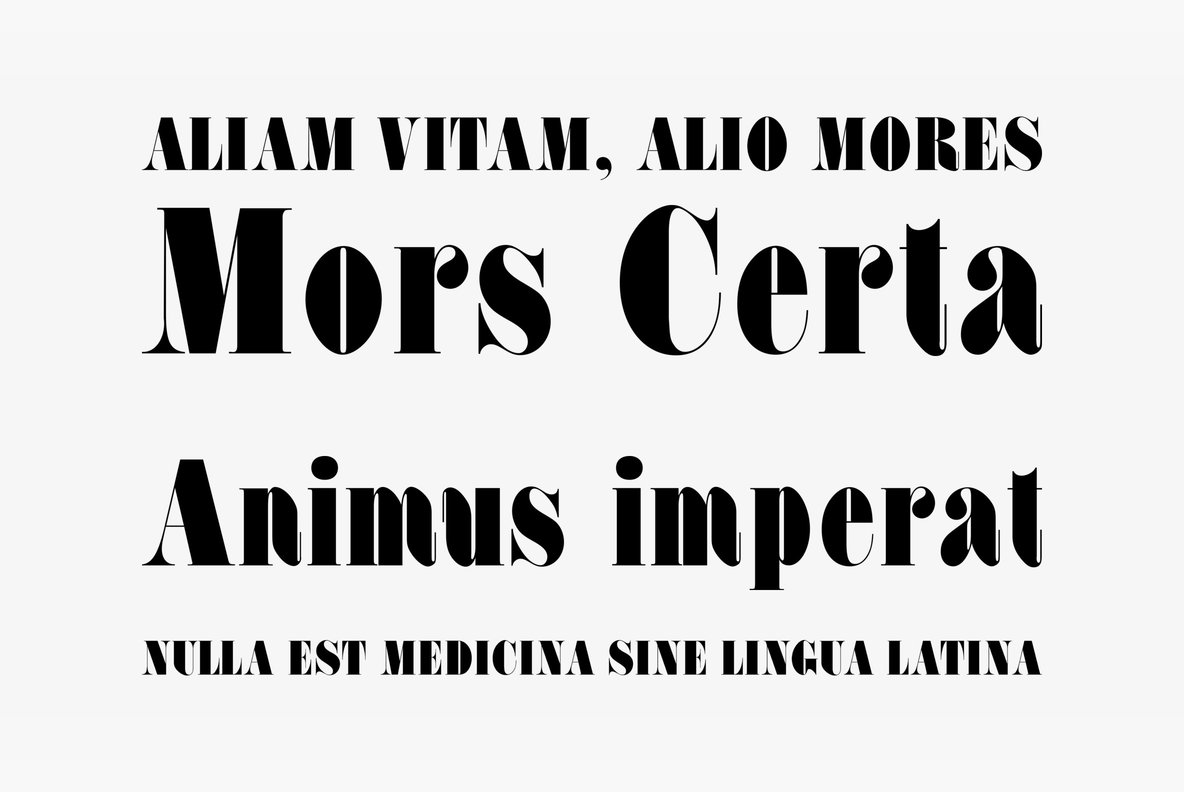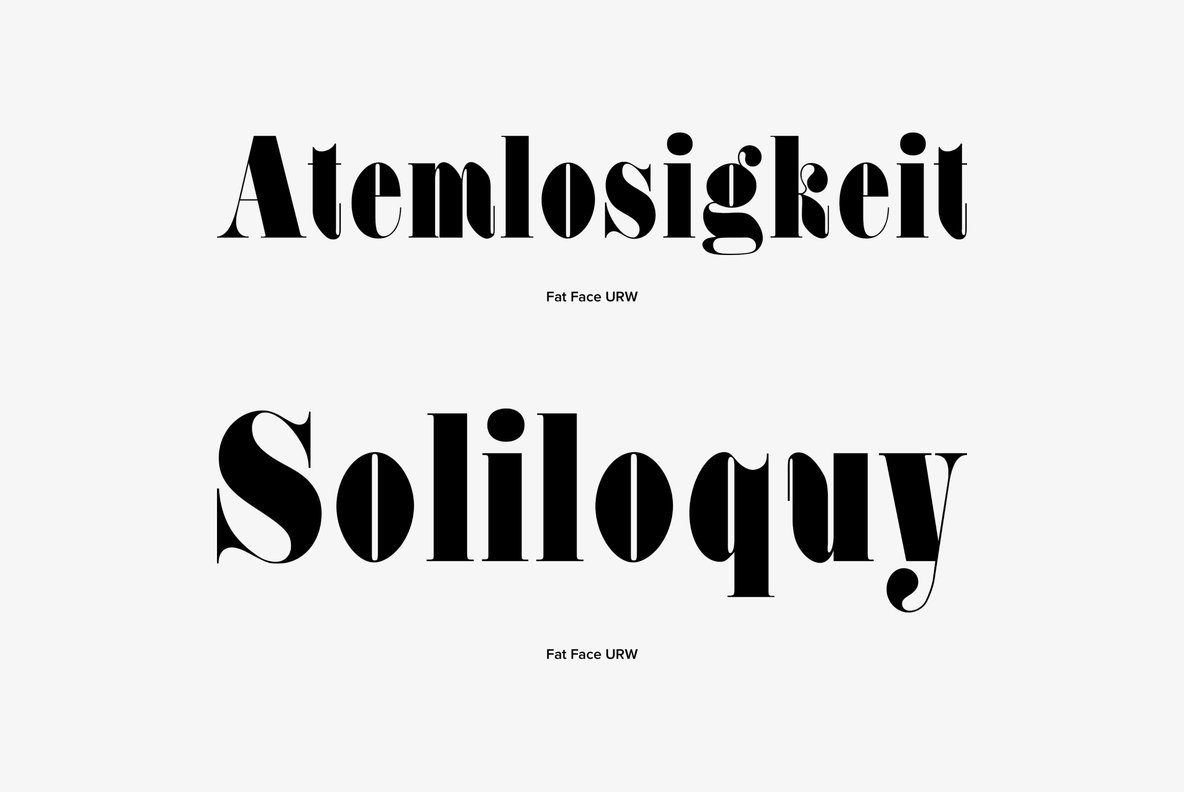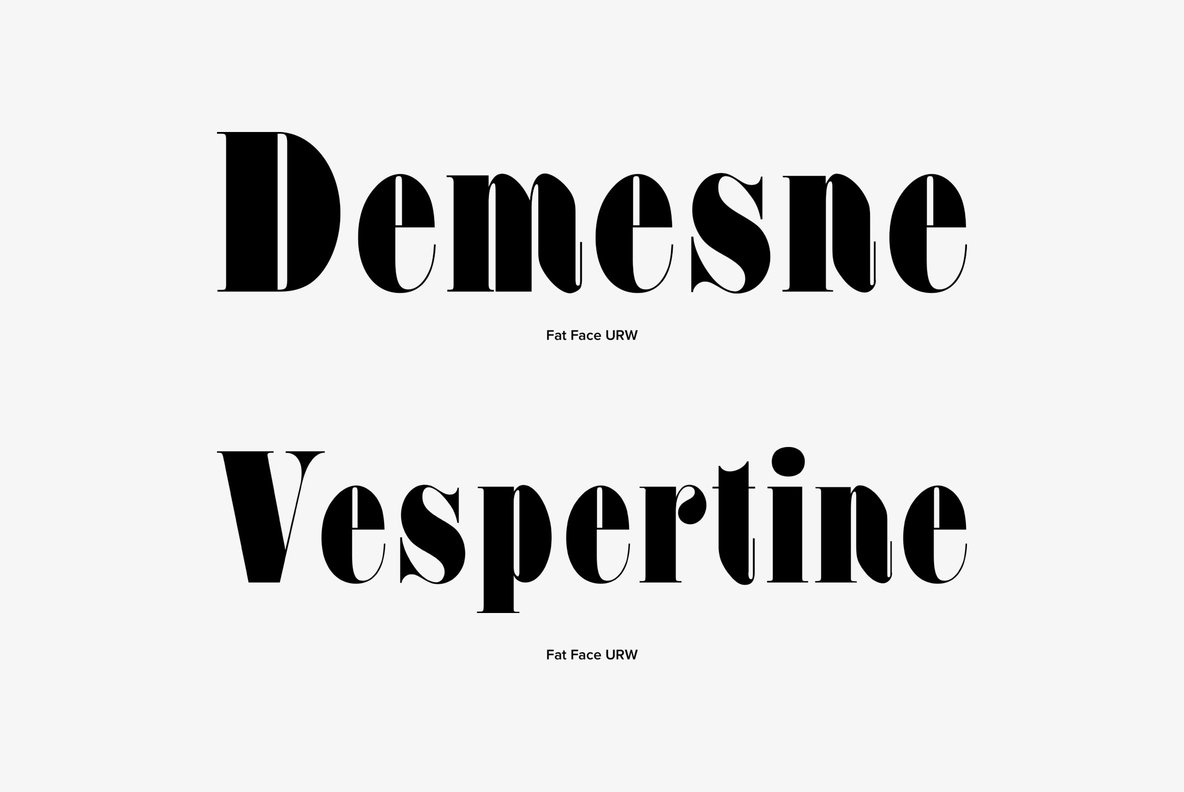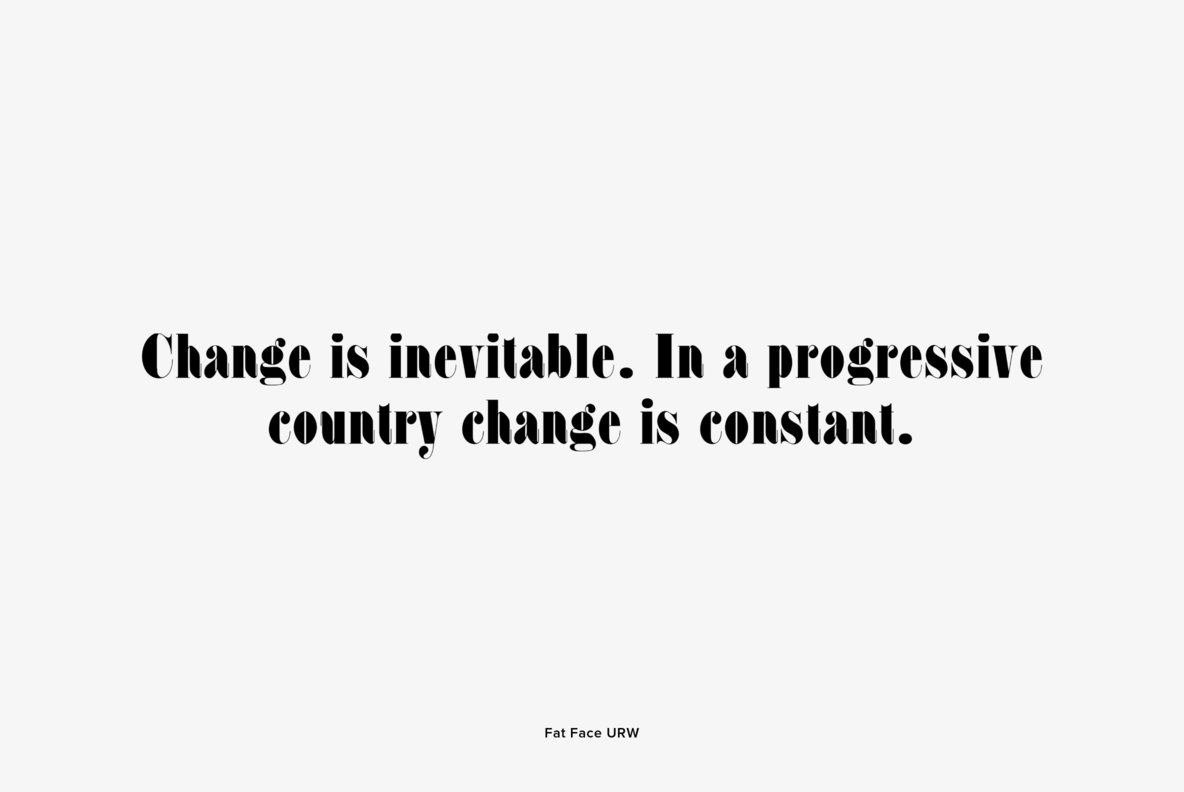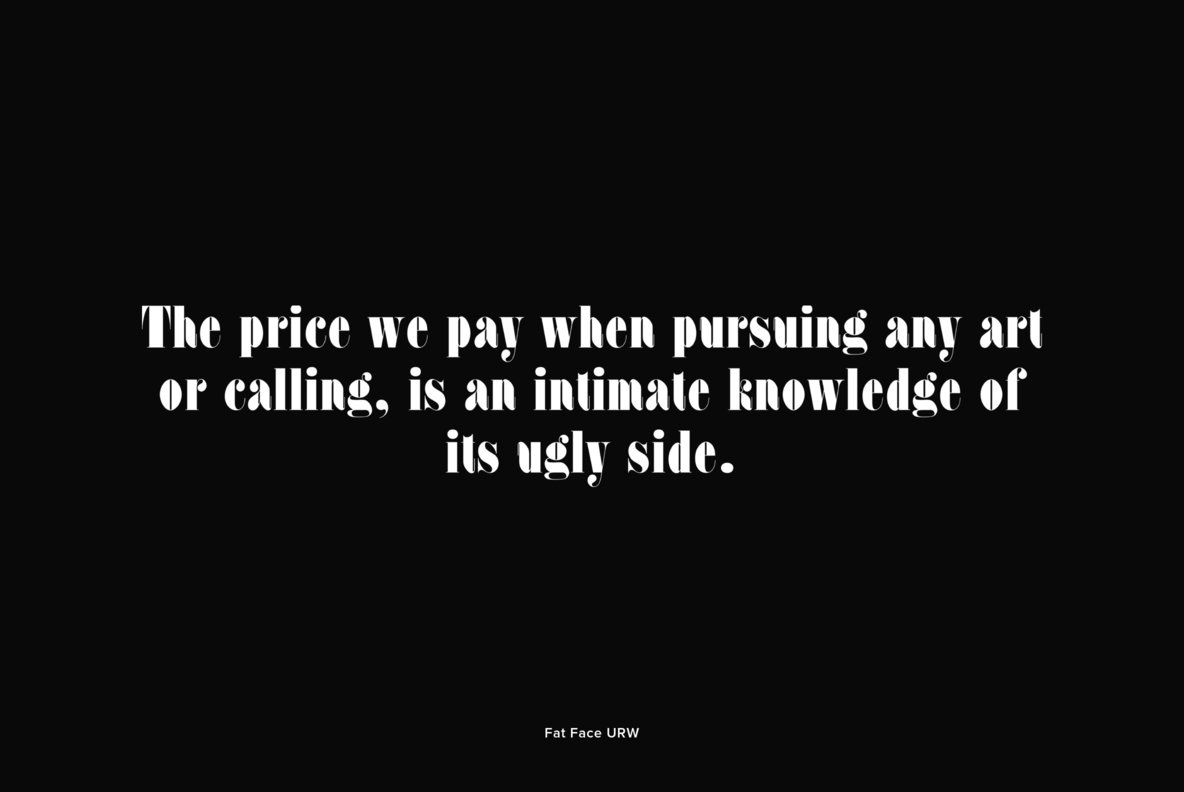
Fat Face
Fat Face is a fashionable and elegant serif font designed by Phil Martin in 1971. Fat Face contains West, East, Turkish, Baltic, Romanian language support.